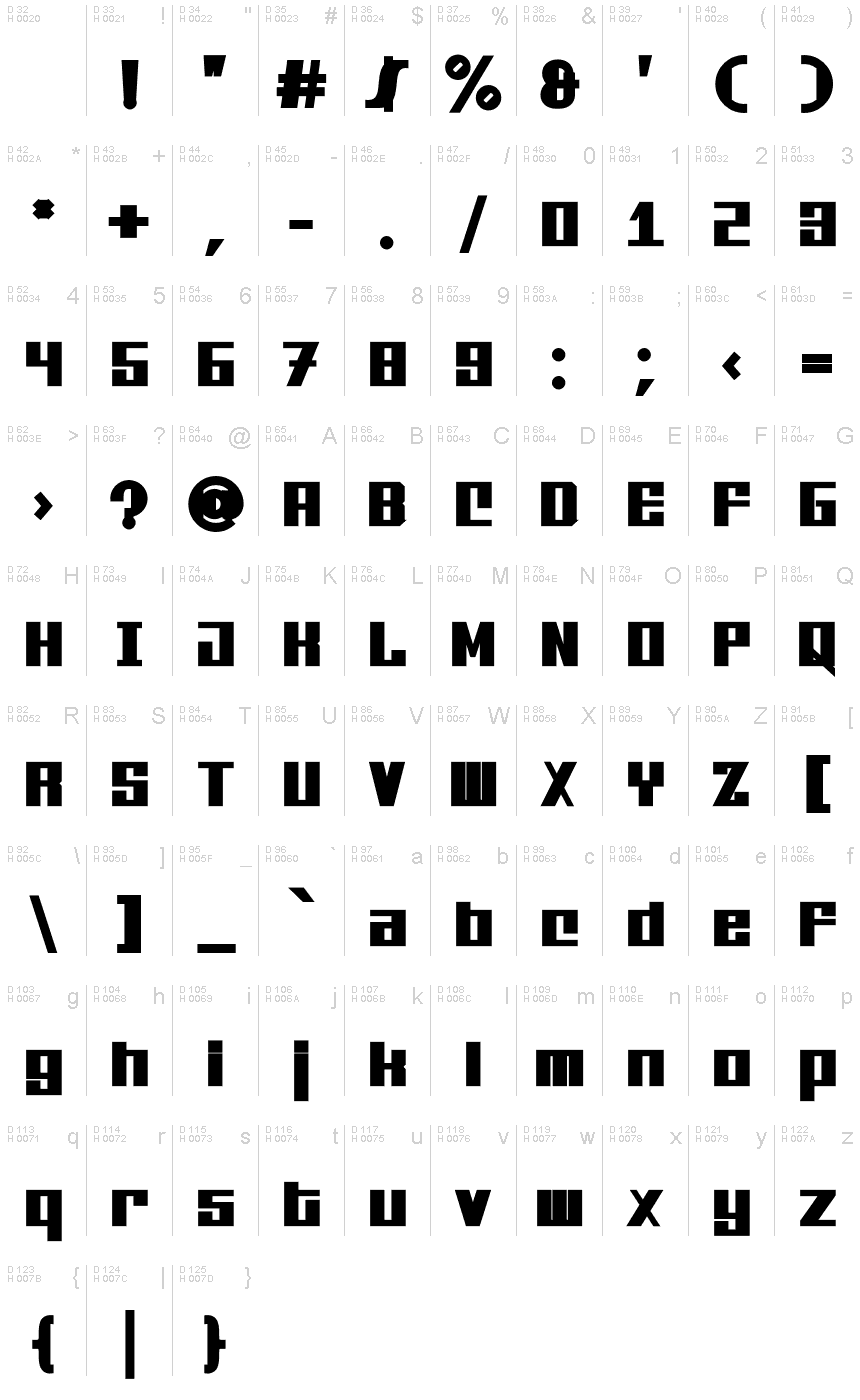
Wheeler Bold
Wheeler Bold is a stunning display font that has been masterfully crafted by Mans Greback. With its bold and expanded width, this techno-inspired typeface commands attention and exudes confidence. Its unique design makes it perfect for projects that require a strong and futuristic aesthetic, such as sci-fi movie posters, video game titles, or tech-related branding. This versatile font can also be used for eye-catching headlines in magazines or on websites. No matter the project, Wheeler Bold is sure to make a bold statement!